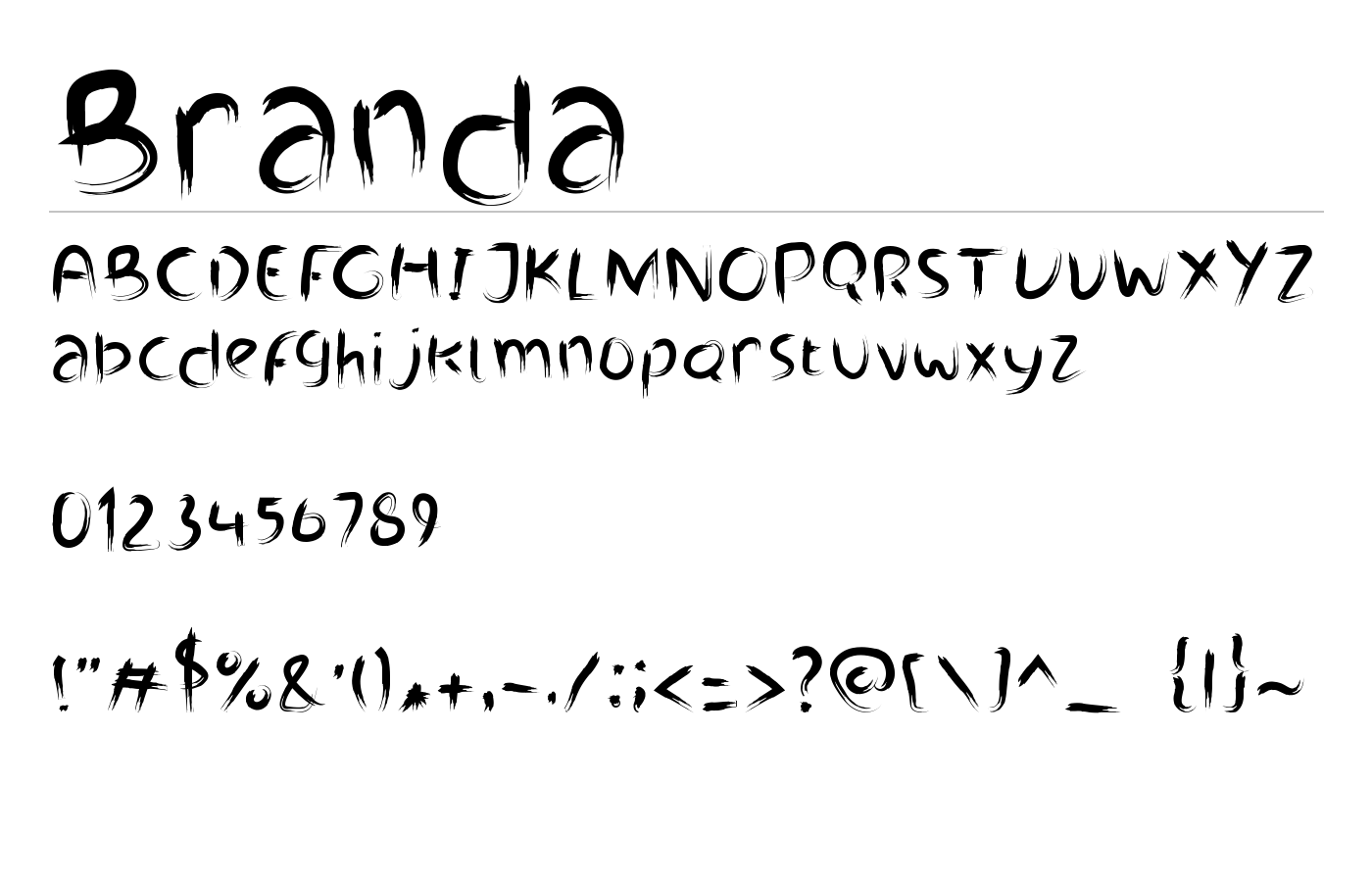
Branda is a unique handwritten-style font with an artistic, brushstroke effect that adds a lively and expressive character to any text. Its irregular shapes and varying stroke weights give it an organic, dynamic feel perfect for creative projects, branding, and headlines that need a bold, personal touch. This font works well in designs that seek an edgy, informal vibe with a hint of spontaneity and flair.
Branda Font
About Branda Font
| Font family | Branda Font |
| Designer | stokk.font |